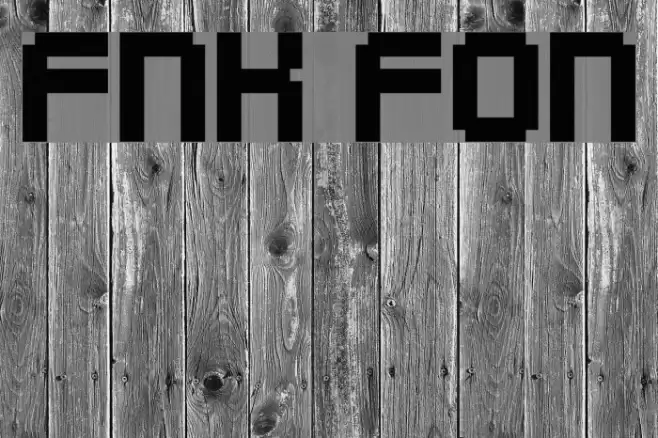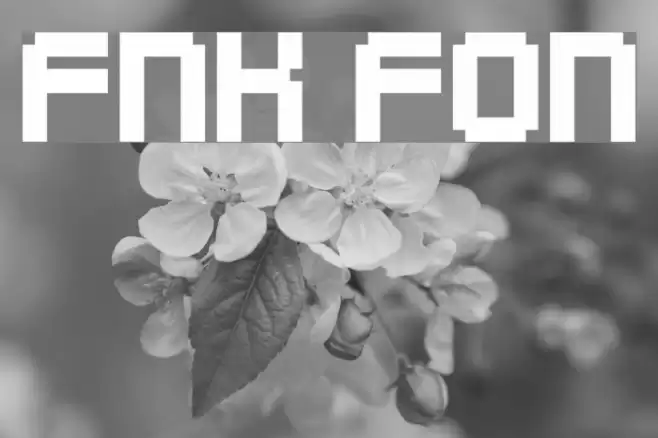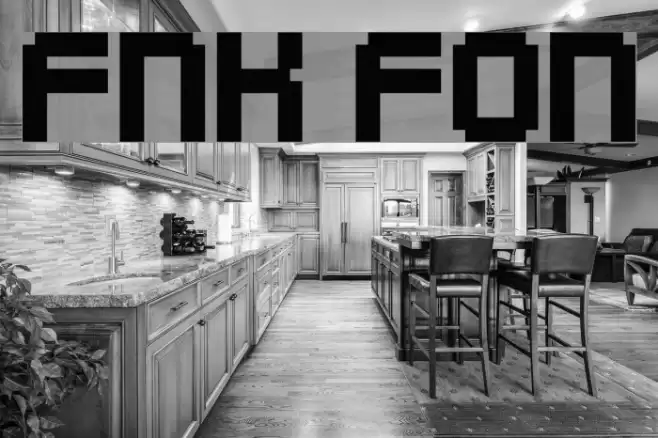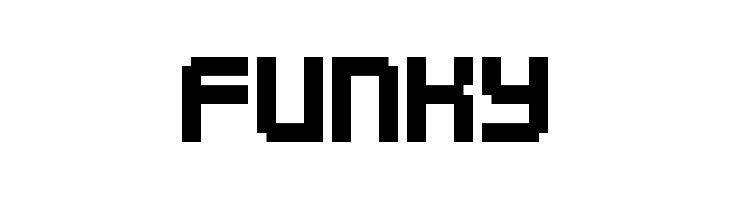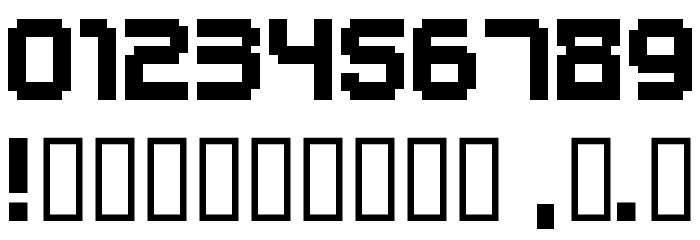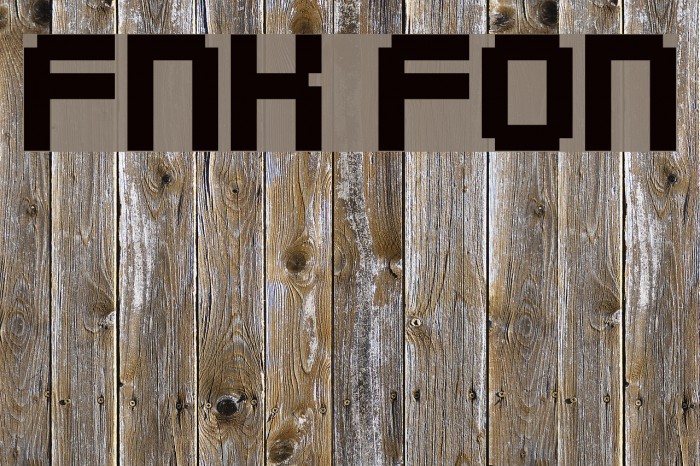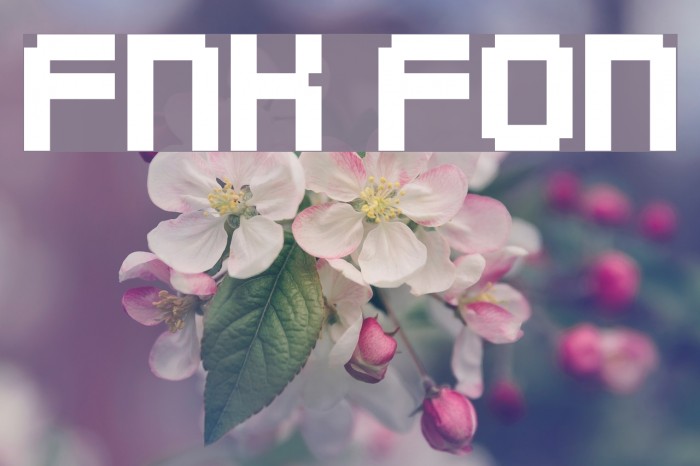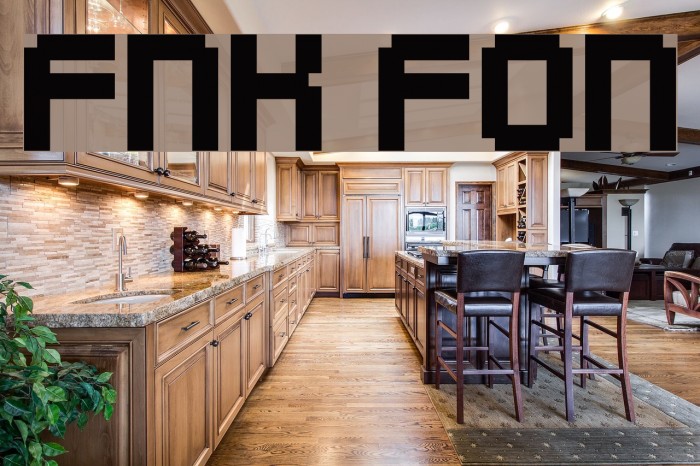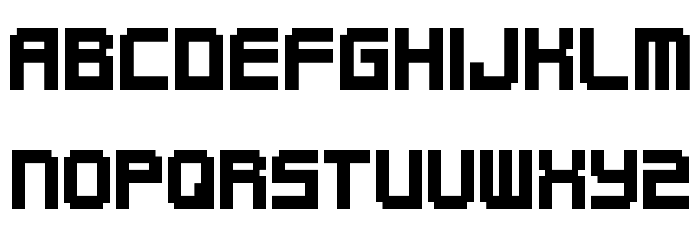
Funky Font
Funky Description
This font exhibits a bold, geometric style with a distinctly modern and digital aesthetic. The characters are composed of blocky, pixel-like shapes that convey a sense of retro computing or arcade games. Each letter and number is crafted with sharp, angular lines and uniform thickness, creating a cohesive and structured appearance. The spacing between characters is consistent, contributing to its clean and organized look. This font is particularly suitable for projects that aim to evoke a sense of nostalgia or embrace a tech-inspired theme.
A bold, geometric font with a retro digital aesthetic from Pixel fonts.
- Proposed Projects: Ideal for video game graphics, tech-themed posters, retro branding, and digital art projects.